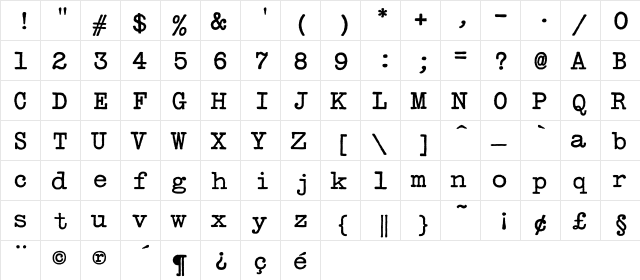
AllureLightAltType Regular
Design Context for AllureLightAltType Typeface
AllureLightAltType is a composed and adaptable typeface that performs quietly and consistently across a wide range of design contexts. The delicate stroke weight brings airiness and refinement to layouts.